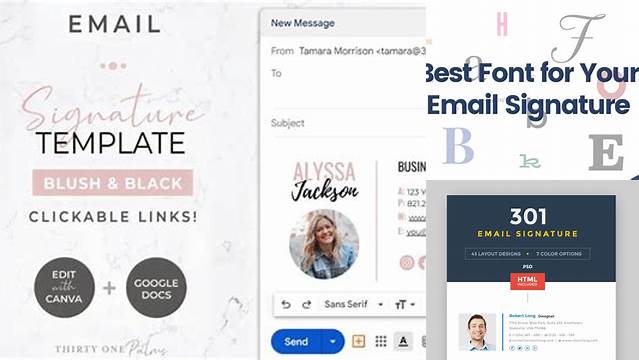
Best Free Fonts For Stunning Email Signatures
Crafting the perfect email signature can significantly elevate your professional image, and the font you choose plays a crucial role. Forget those generic, overused fonts! Selecting free fonts for email signature allows you to inject personality and readability without breaking the bank. Your email signature is often the first (or last!) impression you make, so let's explore some incredible free font options to help you stand out from the crowd. We're diving deep into the world of typography to find the best choices that are both visually appealing and technically sound for use in email. Think of it as giving your digital handshake a serious upgrade!
1. The Importance of Font Choice in Email Signatures
The font you select for your email signature isn't just about aesthetics; it's about conveying professionalism, readability, and brand identity. Choosing the right free fonts for email signature can significantly impact how your message is received. Consider this: a cluttered or hard-to-read font can lead to missed information, while an overly casual font might undermine your authority. The goal is to strike a balance – a font that’s both visually appealing and easy on the eyes. Readability is paramount, especially when your signature contains important contact details like phone numbers and website links. Think about the overall tone you want to project. Are you aiming for modern and tech-savvy? Classic and reliable? Your font should align with these values. Moreover, ensure the font renders correctly across different email clients and devices. Not all fonts are universally supported, so selecting a web-safe option is crucial. We'll get into specifics later, but understanding the importance of font choice is the first step to creating an effective and impactful email signature. In a nutshell, guys, the right font can make or break your first impression, so choose wisely!
2. Understanding Web-Safe Fonts for Email
When discussing free fonts for email signature, the term "web-safe fonts" pops up frequently. These are fonts that are pre-installed on most operating systems and are widely supported by email clients. Using web-safe fonts ensures that your email signature appears as intended, regardless of the recipient's device or software. Common examples of web-safe fonts include Arial, Times New Roman, Courier New, Verdana, and Georgia. While they might seem basic, they are reliable choices that guarantee consistency. However, sticking exclusively to web-safe fonts doesn't mean you have to sacrifice creativity. You can still achieve a visually appealing signature by playing with font sizes, colors, and formatting. Think about using different weights (bold, italic) to highlight key information. You can also combine a web-safe font for the main text with a slightly more decorative web font for your name or title, provided you implement a fallback option. A fallback option specifies an alternative web-safe font that will be displayed if the recipient's system doesn't support the primary font. This ensures that your signature remains readable and professional, even if the intended font isn't available. So, while exploring fancy fonts is tempting, always prioritize web-safe options or implement fallbacks to maintain consistency and readability.
3. Exploring Google Fonts for Email Signatures
Free fonts for email signature aren't limited to the standard web-safe options. Google Fonts offers a vast library of free, open-source fonts that can be used in email signatures. However, using Google Fonts in emails requires a slightly different approach. Unlike web-safe fonts, Google Fonts aren't pre-installed on most systems. To use them, you need to embed them in your email using HTML and CSS. This involves linking to the Google Fonts stylesheet in your email's HTML code. While this method offers greater flexibility in terms of font selection, it also comes with certain considerations. Not all email clients support embedded fonts, so it's crucial to implement fallback options. If the recipient's email client doesn't support embedded fonts, it will default to the fallback font you specify. When selecting Google Fonts, prioritize those that are lightweight and load quickly. Large font files can slow down email loading times, which can be frustrating for recipients. Some popular Google Fonts that work well in email signatures include Roboto, Open Sans, Lato, and Montserrat. These fonts are clean, modern, and highly readable. Remember to test your email signature across different email clients and devices to ensure that the fonts render correctly. By carefully selecting and implementing Google Fonts, you can create a visually stunning email signature that stands out from the crowd.
4. Pairing Fonts Effectively in Your Signature
One of the secrets to creating a visually appealing email signature with free fonts for email signature is effective font pairing. Combining different fonts can add visual interest and hierarchy to your signature, making it more engaging and readable. However, it's important to choose fonts that complement each other rather than clash. A good rule of thumb is to pair a sans-serif font with a serif font. For example, you could use Open Sans (sans-serif) for the main text of your signature and Merriweather (serif) for your name or title. Avoid using more than two or three fonts in your signature, as this can make it look cluttered and unprofessional. When pairing fonts, consider their visual weight and contrast. Ensure that the fonts have enough contrast to be easily distinguishable from each other. You can also use different font sizes and weights to create visual hierarchy. For example, you might use a larger, bolder font for your name and a smaller, lighter font for your contact information. Tools like FontPair can help you discover harmonious font combinations. Experiment with different pairings until you find a combination that reflects your personal brand and style. Remember, the goal is to create a signature that is both visually appealing and easy to read. Font pairing is an art, but with a little practice, you can master it and create a signature that truly shines.
5. Font Size and Readability Considerations
When selecting free fonts for email signature, remember that size matters! The font size you choose can significantly impact the readability of your signature. A font that is too small can be difficult to read, especially on smaller screens, while a font that is too large can look unprofessional and overwhelming. Aim for a font size that is comfortable to read on both desktop and mobile devices. Generally, a font size of 10-12 points is a good starting point for the main text of your signature. You can use a slightly larger font size (14-16 points) for your name or title to make it stand out. Consider the font's x-height, which is the height of the lowercase letters. Fonts with a larger x-height tend to be more readable at smaller sizes. Also, pay attention to the line height, which is the vertical space between lines of text. Adequate line height can improve readability by preventing the lines from appearing too crowded. Test your email signature on different devices and email clients to ensure that the font size and line height are optimized for readability. Ask colleagues or friends to review your signature and provide feedback on its readability. By carefully considering font size and line height, you can create an email signature that is both visually appealing and easy to read, ensuring that your message is effectively communicated.
6. Best Sans-Serif Fonts for Email Signatures
For a clean and modern look in your free fonts for email signature, sans-serif fonts are an excellent choice. These fonts, lacking the small decorative strokes (serifs) at the end of characters, often convey simplicity and clarity. Some of the best sans-serif fonts for email signatures include Arial, Helvetica, Open Sans, Lato, and Roboto. Arial is a classic web-safe font that is widely supported and highly readable. Helvetica is another popular choice known for its clean lines and versatility. Open Sans is a Google Font that is optimized for readability on screens, making it a great option for email signatures. Lato is a sleek and modern sans-serif font that is both friendly and professional. Roboto is a versatile font family that includes various weights and styles, allowing you to create a visually appealing and consistent signature. When choosing a sans-serif font, consider its weight and contrast. Ensure that the font is not too light or too bold, as this can affect readability. Also, pay attention to the spacing between letters and words. Adequate spacing can improve readability and prevent the text from appearing cluttered. Experiment with different sans-serif fonts and find one that aligns with your personal brand and style. Remember, the goal is to choose a font that is both visually appealing and easy to read, ensuring that your email signature makes a positive impression.
7. Top Serif Fonts for Professional Email Signatures
If you're aiming for a more traditional and elegant feel with your free fonts for email signature, serif fonts are the way to go. Serif fonts, characterized by the small decorative strokes (serifs) at the end of characters, often evoke a sense of authority and sophistication. Some of the top serif fonts for professional email signatures include Times New Roman, Georgia, Merriweather, and Playfair Display. Times New Roman is a classic web-safe font that is widely recognized and highly readable. Georgia is another popular choice known for its elegant and timeless appearance. Merriweather is a Google Font that is specifically designed for readability on screens, making it an excellent option for email signatures. Playfair Display is a more decorative serif font that can add a touch of sophistication to your signature, but use it sparingly, perhaps just for your name or title. When choosing a serif font, consider its weight and contrast. Ensure that the font is not too light or too bold, as this can affect readability. Also, pay attention to the spacing between letters and words. Adequate spacing can improve readability and prevent the text from appearing cluttered. Experiment with different serif fonts and find one that aligns with your personal brand and style. Remember, the goal is to choose a font that is both visually appealing and easy to read, ensuring that your email signature makes a positive impression.
8. Monospace Fonts: When and How to Use Them
Monospace fonts, where each character occupies the same horizontal space, offer a unique aesthetic for free fonts for email signature. They are often associated with coding and technical fields, giving a distinctive, almost typewriter-like appearance. While not typically the first choice for email signatures, monospace fonts can be effective in specific scenarios. If you work in a tech-related industry or want to convey a sense of precision and detail, a monospace font might be a good fit. Courier New is a classic web-safe monospace font that is widely supported and highly readable. Consolas is another popular choice known for its clean and modern appearance. When using a monospace font, it's important to consider its readability. Monospace fonts can sometimes be difficult to read in large blocks of text, so use them sparingly. Consider using a monospace font for specific elements of your signature, such as your job title or contact information, while using a more traditional font for your name. Also, pay attention to the spacing between letters and words. Adequate spacing can improve readability and prevent the text from appearing cluttered. Experiment with different monospace fonts and find one that aligns with your personal brand and style. Remember, the goal is to choose a font that is both visually appealing and easy to read, ensuring that your email signature makes a positive impression. Used strategically, a monospace font can add a touch of uniqueness to your signature.
9. Using Font Weights (Bold, Italic, Regular)
The weight of a font—whether it's bold, italic, or regular—plays a significant role in the visual impact and readability of your free fonts for email signature. Strategically using different font weights can help you highlight key information and create a clear visual hierarchy. Bold text is ideal for emphasizing important elements, such as your name or job title. Italic text can be used to add a touch of elegance or to differentiate certain elements, such as your company name or a quote. Regular weight is best for the main body of your signature, ensuring that it remains readable and uncluttered. When using font weights, it's important to maintain consistency. Avoid using too many different weights, as this can make your signature look chaotic and unprofessional. A good rule of thumb is to use no more than two or three different weights in your signature. Also, consider the font's inherent weight. Some fonts are naturally bolder or lighter than others, so choose weights that complement the font's overall appearance. Experiment with different font weights and find a combination that aligns with your personal brand and style. Remember, the goal is to use font weights to enhance the readability and visual appeal of your signature, ensuring that it makes a positive impression. Properly used, font weights are your friends!
10. Font Color Psychology in Email Signatures
The color of your free fonts for email signature is more than just an aesthetic choice; it can evoke specific emotions and associations, influencing how your message is perceived. Understanding font color psychology can help you create a signature that effectively communicates your brand identity and professionalism. Black is a classic and versatile color that conveys authority, sophistication, and neutrality. It's a safe choice for most professional email signatures. Blue is often associated with trust, reliability, and calmness. It's a good choice for industries such as finance, healthcare, and technology. Green is associated with nature, growth, and harmony. It can be a good choice for environmentally conscious businesses or individuals. Red is associated with energy, passion, and excitement. Use it sparingly, as it can be perceived as aggressive or attention-seeking. Gray is a neutral color that conveys professionalism and sophistication. It's a good choice for a minimalist and understated signature. When choosing a font color, consider your brand identity and the message you want to convey. Also, ensure that the color contrasts well with the background color of your email client. Avoid using colors that are too bright or distracting, as this can make your signature difficult to read. Experiment with different font colors and find one that aligns with your personal brand and style. Remember, the goal is to choose a font color that enhances the readability and visual appeal of your signature, ensuring that it makes a positive impression. Think about what feelings you want to trigger!
11. Avoiding Overused Fonts in Email Signatures
When selecting free fonts for email signature, steer clear of overused fonts to make a distinct impression. Arial and Times New Roman, while web-safe, are incredibly common and can make your signature feel generic. Opting for something less ubiquitous can instantly elevate your professionalism. Think of your font choice as a reflection of your personality and brand. Instead of Arial, consider Open Sans or Lato for a modern, readable sans-serif option. If you prefer serif fonts but want to avoid Times New Roman, Georgia or Merriweather offer a more contemporary feel. The key is to strike a balance between uniqueness and readability. A font that is too quirky or unconventional can be difficult to read, undermining the purpose of your signature. Before settling on a font, research its popularity and usage. There are online tools that can help you determine how frequently a particular font is used across the web. By avoiding overused fonts, you can create an email signature that stands out from the crowd and reinforces your brand identity. Dare to be different, guys! It's worth it.
12. How to Embed Google Fonts in Email Signatures
Using Google Fonts for your free fonts for email signature can add a touch of personality, but it requires embedding them properly. Embedding ensures your chosen font displays correctly, even if the recipient doesn't have it installed. There are a couple of methods to embed Google Fonts: using the <link> tag or the @import rule in your email's HTML code. The <link> tag method involves adding a <link> element in the <head> section of your HTML, pointing to the Google Fonts stylesheet. The @import rule involves adding an @import statement in your CSS code, specifying the URL of the Google Fonts stylesheet. However, not all email clients support embedded fonts. To ensure your signature remains readable, implement fallback options. Specify a web-safe font as a backup in case the Google Font doesn't load. Test your email signature across different email clients and devices to verify that the fonts render correctly. Some email clients may strip out the embedded font code, so always have a fallback plan. By carefully embedding Google Fonts and implementing fallbacks, you can create a visually appealing email signature that displays correctly across most email clients. Just remember to test, test, test!
13. Mobile Optimization for Email Signature Fonts
In today's mobile-first world, optimizing your free fonts for email signature for mobile devices is essential. A font that looks great on a desktop screen might be illegible on a smartphone. Ensure your font size is large enough to be easily readable on smaller screens. A minimum font size of 12 points is generally recommended for mobile devices. Consider using a responsive design approach to adjust the font size and layout of your signature based on the screen size. You can use CSS media queries to target different screen sizes and apply specific styles. Test your email signature on various mobile devices and email clients to ensure it displays correctly. Pay attention to line spacing and letter spacing, as these can affect readability on smaller screens. Avoid using overly decorative or complex fonts, as they may not render well on mobile devices. Opt for clean and simple fonts that are optimized for screen readability. By optimizing your email signature fonts for mobile devices, you can ensure that your message is effectively communicated to all recipients, regardless of their device. Don't let your signature get lost in translation!
14. Font Licensing and Usage Rights
Before using any free fonts for email signature, understand the licensing and usage rights. While many fonts are free, they may come with restrictions on how you can use them. Some fonts are free for personal use but require a commercial license for business purposes. Others may have restrictions on embedding or modifying the font. Always check the font's license agreement before using it in your email signature. Font licenses typically specify the permitted uses, restrictions, and attribution requirements. Some common types of font licenses include SIL Open Font License (OFL), Apache License, and Creative Commons licenses. The SIL Open Font License is a popular open-source license that allows you to use, modify, and distribute the font freely. The Apache License is another open-source license that grants similar rights. Creative Commons licenses offer various levels of permissions, ranging from attribution-only to non-commercial use only. By understanding font licensing and usage rights, you can ensure that you are using fonts legally and ethically in your email signature. It's always better to be safe than sorry, guys.
15. Font File Formats: TTF, OTF, WOFF
Understanding font file formats is crucial when working with free fonts for email signature, especially if you plan to embed them. The most common font file formats are TTF (TrueType Font), OTF (OpenType Font), and WOFF (Web Open Font Format). TTF is a widely supported font format that is compatible with most operating systems and email clients. OTF is a more advanced font format that offers improved features and flexibility. WOFF is a font format specifically designed for web use, offering better compression and performance. When embedding fonts in your email signature, WOFF is generally the preferred format due to its optimization for web use. However, not all email clients support WOFF, so it's important to provide fallback options in TTF or OTF format. Consider using a font conversion tool to convert your fonts to different formats. This can help you ensure compatibility across different email clients and devices. Also, pay attention to the font file size, as large font files can slow down email loading times. Optimize your font files by removing unnecessary characters and glyphs. By understanding font file formats, you can choose the right format for your email signature and ensure that your fonts display correctly across different platforms. Format matters, folks!
16. Accessibility Considerations for Email Signature Fonts
When selecting free fonts for email signature, remember accessibility. Make your signature readable for everyone, including those with visual impairments. Choose fonts with good readability, such as Arial, Open Sans, or Verdana. Avoid decorative fonts that can be difficult to read. Ensure your font size is large enough, ideally 12 points or higher. Use sufficient contrast between the text and background. Black text on a white background offers excellent readability. Avoid color combinations that can be difficult for people with color blindness. Provide alternative text (alt text) for any images or icons in your signature. This allows screen readers to describe the image to visually impaired users. Use proper HTML structure and semantic tags to organize your signature content. This helps screen readers interpret the content correctly. Test your email signature with a screen reader to ensure it is accessible. By considering accessibility when choosing your email signature fonts, you can create a signature that is inclusive and user-friendly for everyone. Let's make the digital world accessible to all, guys!
17. Testing Your Email Signature Across Different Clients
Before finalizing your free fonts for email signature, test it across various email clients. What looks perfect in Gmail might be garbled in Outlook or Apple Mail. Testing ensures your signature displays correctly everywhere. Send test emails to yourself using different email clients and devices. Check how the fonts render, the layout, and the overall appearance of your signature. Pay attention to font sizes, line spacing, and image display. Some email clients may strip out certain HTML or CSS code, affecting the appearance of your signature. Use online email testing tools to preview your signature in different email clients. These tools can simulate how your signature will look in various environments. Ask colleagues or friends to review your signature and provide feedback on its appearance in their email clients. Document any inconsistencies or issues and make necessary adjustments to your signature code. By thoroughly testing your email signature across different email clients, you can ensure that it displays correctly for all recipients. Don't leave it to chance – test, test, test!
18. The Role of Kerning and Letter Spacing
Kerning and letter spacing are typography nuances that can significantly impact the readability and aesthetics of your free fonts for email signature. Kerning refers to the adjustment of space between individual letter pairs to improve visual harmony. Letter spacing, also known as tracking, refers to the uniform adjustment of space between all letters in a word or phrase. Proper kerning and letter spacing can enhance the readability of your signature and make it more visually appealing. Too little kerning can make letters appear crowded, while too much can make them appear disconnected. Adjust the kerning to create a balanced and harmonious appearance. Too little letter spacing can make words appear cramped, while too much can make them appear disjointed. Adjust the letter spacing to improve readability and visual flow. Some fonts have built-in kerning tables that automatically adjust the spacing between letter pairs. However, you may need to manually adjust the kerning for certain fonts to achieve optimal results. Use typography tools or software to fine-tune the kerning and letter spacing of your signature fonts. By paying attention to kerning and letter spacing, you can create an email signature that is both readable and visually pleasing. It's the little details that make a big difference, guys!
19. Avoiding Common Font Mistakes in Email Signatures
When choosing free fonts for email signature, avoid common mistakes that can detract from your professionalism. Using too many different fonts in your signature can create a cluttered and chaotic appearance. Stick to a maximum of two or three fonts. Choosing fonts that are difficult to read can frustrate recipients and undermine your message. Opt for clear and legible fonts. Using font sizes that are too small can make your signature illegible, especially on mobile devices. Ensure your font size is large enough to be easily readable. Using font colors that lack sufficient contrast with the background can make your signature difficult to read. Choose colors that provide good contrast. Ignoring accessibility considerations can exclude visually impaired users from accessing your signature information. Follow accessibility guidelines. Failing to test your signature across different email clients can result in display issues and inconsistencies. Always test your signature thoroughly. By avoiding these common font mistakes, you can create an email signature that is professional, readable, and effective. Let's aim for signature perfection, guys!
20. How to Create a Font Fallback Stack
Crafting a font fallback stack is essential when using free fonts for email signature, especially for web fonts. A fallback stack ensures your signature remains readable even if the primary font fails to load. The fallback stack lists alternative fonts in order of preference, with web-safe fonts at the end. This guarantees a readable display regardless of the recipient's system. Start by specifying your desired web font as the first option in the stack. Follow this with similar-looking fonts that are more likely to be available on different systems. End the stack with a generic font family, such as sans-serif or serif, to provide a final fallback option. Use CSS to define the font-family property with the fallback stack. For example: font-family: 'Open Sans', Arial, sans-serif;. Test your email signature by disabling web fonts in your browser or email client. This allows you to see how the fallback fonts render. Adjust the order of the fonts in the stack as needed to achieve the best possible appearance. By creating a comprehensive font fallback stack, you can ensure that your email signature always displays correctly, regardless of the recipient's system or email client. A little planning goes a long way, folks!
21. Using Icons and Symbols with Your Chosen Font
Enhance your free fonts for email signature by incorporating icons and symbols! These visual elements can add personality and make key information stand out. Use icons to represent social media links, contact information, or website URLs. Ensure the icons are consistent with your brand's style and color palette. Choose icons that are clear, simple, and easily recognizable. Avoid using overly complex or decorative icons. Use a font that complements the style of your icons. A clean, sans-serif font often works well with modern icons. Adjust the size and spacing of the icons to ensure they are visually balanced with the text. Use HTML entities or Unicode characters to insert symbols into your signature. Examples include phone symbols (☎) or email symbols (✉). Be mindful of how icons and symbols render across different email clients. Some email clients may not support certain characters or display them incorrectly. Test your email signature thoroughly to ensure the icons and symbols display as intended. By carefully incorporating icons and symbols, you can create an email signature that is both visually appealing and informative. Icons make everything better, right guys?
22. The Impact of Font Choice on Brand Perception
Your choice of free fonts for email signature significantly impacts brand perception. The font you use communicates your brand's personality and values. A modern, sans-serif font can convey innovation and tech-savviness. A classic, serif font can convey tradition and reliability. A playful, handwritten font can convey creativity and approachability. Choose a font that aligns with your brand's identity and target audience. Consider the emotional associations of different fonts. Some fonts evoke feelings of trust and security, while others evoke feelings of excitement and energy. Maintain consistency in your font choices across all your marketing materials. This helps reinforce your brand identity and create a cohesive brand experience. Avoid using fonts that are too generic or overused. This can make your brand appear unoriginal or outdated. Seek feedback from colleagues or customers on your font choices. Their input can help you refine your brand image. By carefully considering the impact of font choice on brand perception, you can create an email signature that effectively communicates your brand's message. Let your font speak volumes, guys!
23. Optimizing Font Loading Speed in Email Signatures
When using web fonts for your free fonts for email signature, prioritize font loading speed. Slow-loading fonts can delay the display of your signature and create a poor user experience. Use a content delivery network (CDN) to host your web fonts. CDNs can deliver fonts quickly and efficiently from servers located around the world. Choose font formats that are optimized for web use, such as WOFF or WOFF2. These formats offer better compression and performance compared to TTF or OTF. Subset your fonts to include only the characters you need. This can significantly reduce the font file size. Use font-display: swap; in your CSS to ensure text is visible while the font is loading. This prevents a flash of invisible text (FOIT). Preload your fonts to prioritize their loading. This can help improve the perceived loading speed. Monitor your font loading speed using web performance tools. Identify and address any bottlenecks or issues. By optimizing font loading speed in your email signature, you can ensure a fast and seamless user experience. Speed matters, guys!
24. Choosing Fonts for Different Industries
Selecting free fonts for email signature should align with the industry you're in. Different industries often have different stylistic preferences. For example, in finance or law, opt for classic, professional fonts like Georgia or Arial. These convey stability and trustworthiness. In tech or design, choose modern, clean fonts like Open Sans or Lato. These reflect innovation and creativity. In healthcare, select readable, approachable fonts like Roboto or Helvetica. These communicate clarity and care. In education, go for friendly, legible fonts like Nunito or Quicksand. These foster a sense of community and accessibility. Research common font choices in your industry to get a sense of best practices. Consider your target audience and the message you want to convey. Choose fonts that resonate with your audience and reflect your brand's values. Avoid using fonts that are too trendy or unconventional, unless they align with your industry's aesthetic. By choosing fonts that are appropriate for your industry, you can enhance your credibility and professionalism. Know your audience, guys!
25. Combining Fonts with Images in Email Signatures
Integrating free fonts for email signature with images requires a thoughtful approach. Balance the visual weight of your fonts and images to create a harmonious design. Choose fonts that complement the style and color palette of your images. Avoid using too many images in your signature, as this can make it look cluttered and unprofessional. Optimize your images for web use to reduce file size and improve loading speed. Use alt text for your images to provide alternative descriptions for visually impaired users. Ensure your images are responsive and display correctly on different devices. Test your email signature with images across various email clients to verify compatibility. Consider using icons instead of images to reduce file size and improve performance. By carefully combining fonts with images, you can create an email signature that is both visually appealing and informative. Picture perfect, guys!
26. Creating a Consistent Brand Identity with Fonts
Maintaining a consistent brand identity across all your communications, including your free fonts for email signature, is crucial. This reinforces brand recognition and builds trust. Use the same fonts in your email signature as you do on your website, business cards, and other marketing materials. Choose a font palette that reflects your brand's personality and values. Avoid using too many different fonts, as this can create a disjointed brand image. Develop a style guide that outlines your brand's font choices and usage guidelines. Train your employees on your brand's font guidelines to ensure consistency. Regularly review your brand identity and font choices to ensure they remain relevant and effective. Consider updating your fonts periodically to refresh your brand's image. By creating a consistent brand identity with fonts, you can strengthen your brand's message and create a lasting impression. Consistency is key, guys!
27. When to Use Script or Handwritten Fonts
Deciding when to use script or handwritten free fonts for email signature requires careful consideration. These fonts can add a personal touch but aren't always appropriate. Use them sparingly and strategically. If your brand is creative, artistic, or personal, a script or handwritten font might fit. Think photographers, designers, or consultants. Ensure the script font is highly legible. Avoid overly ornate or swirly fonts that are difficult to read. Use script fonts primarily for your name or a short tagline, not for entire blocks of text. Pair the script font with a clean, readable sans-serif font for the rest of your signature. Consider your target audience. Script fonts might not resonate with audiences in more formal industries. Test how the script font renders across different email clients and devices. Be aware that some clients might not display script fonts correctly. If in doubt, opt for a more traditional and universally compatible font. By using script or handwritten fonts judiciously, you can add a touch of personality to your signature without sacrificing professionalism. Handle with care, guys!
28. The Future of Fonts in Email Signatures
The future of free fonts for email signature is likely to be shaped by several trends. Expect greater support for web fonts across different email clients, reducing the need for fallback stacks. Look for more sophisticated font technologies that improve rendering and performance. Explore variable fonts, which offer a wide range of styles within a single font file. Consider the increasing importance of accessibility and the development of fonts optimized for readability by people with visual impairments. Anticipate more AI-powered tools that help you choose the perfect fonts for your brand and target audience. Stay updated on the latest font trends and technologies to ensure your email signature remains cutting-edge. The future is font-tastic, guys!
29. Finding Inspiration for Email Signature Font Choices
Stuck on choosing the right free fonts for email signature? Look around for inspiration. Explore online font libraries like Google Fonts, Adobe Fonts, and Font Squirrel. Browse design blogs and websites for examples of effective email signatures. Analyze the font choices of successful brands in your industry. Pay attention to the fonts used in print materials, such as magazines and brochures. Use font pairing tools to discover harmonious font combinations. Experiment with different font combinations and styles to find what resonates with you. Seek feedback from colleagues or friends on your font choices. Attend design conferences and workshops to learn about the latest font trends. By seeking inspiration from various sources, you can discover the perfect fonts for your email signature. Inspiration is everywhere, guys!
30. Maintaining a Professional Image with Your Font Choice
Ultimately, the goal of selecting free fonts for email signature is to maintain a professional image. Your font choice should reflect your brand's values and personality, while also being readable and accessible. Choose fonts that are appropriate for your industry and target audience. Avoid using fonts that are too trendy, decorative, or difficult to read. Ensure your font size is large enough to be easily readable on different devices. Use sufficient contrast between the text and background to improve readability. Test your email signature across various email clients to ensure it displays correctly. Be mindful of accessibility and choose fonts that are optimized for readability by people with visual impairments. By maintaining a professional image with your font choice, you can create an email signature that enhances your credibility and leaves a positive impression. Stay classy, guys! Your professional image is worth it.